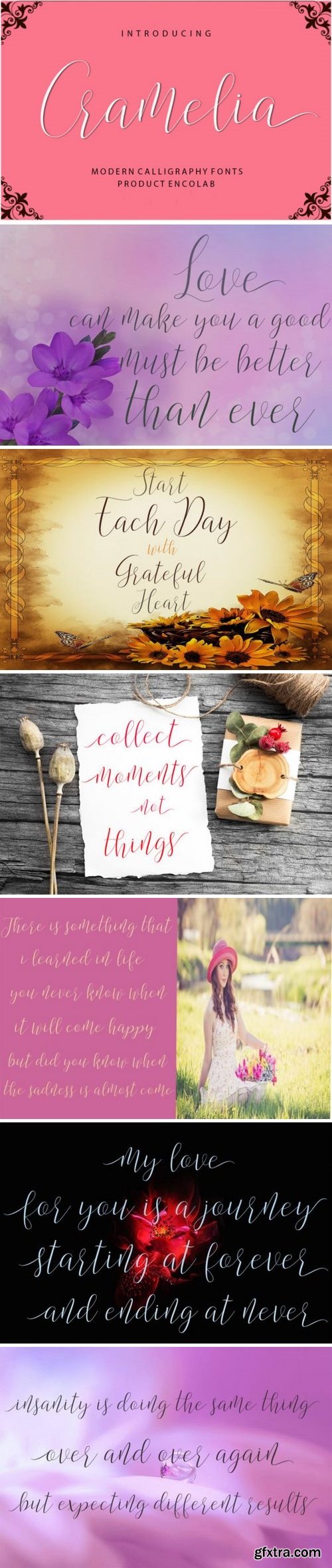
The Cramelia is a modern script font with a smooth baseline. It has a trendy and feminine style which is perfect for T-shirts, thank you cards, quotes, greeting cards, logos, business cards and more.